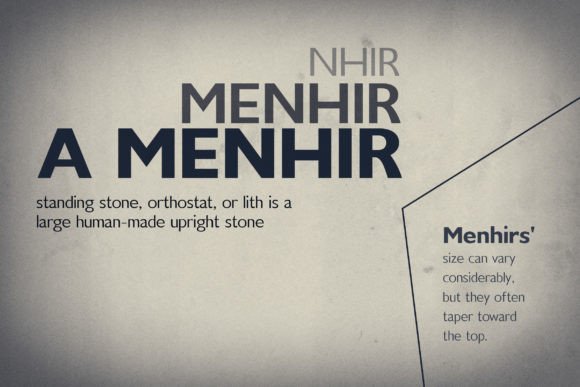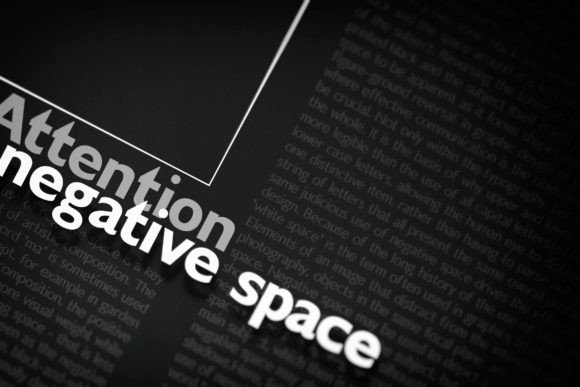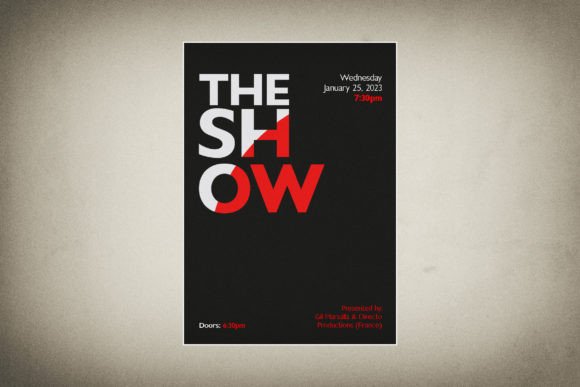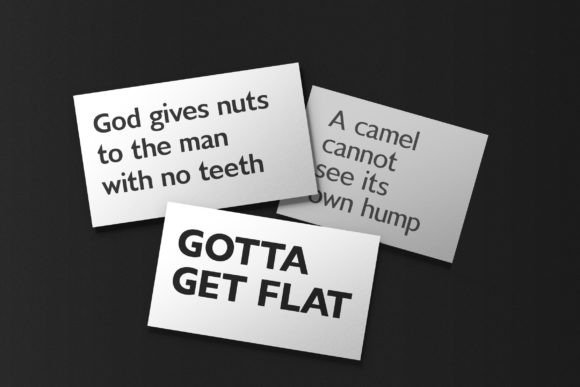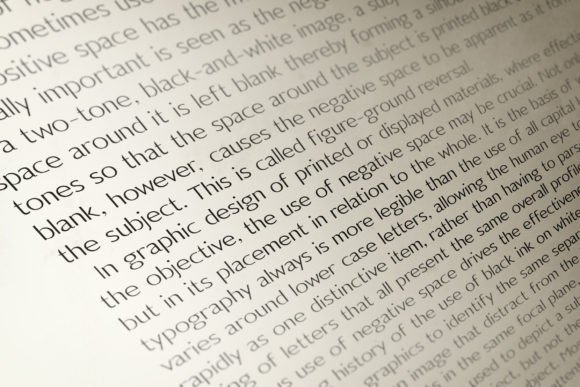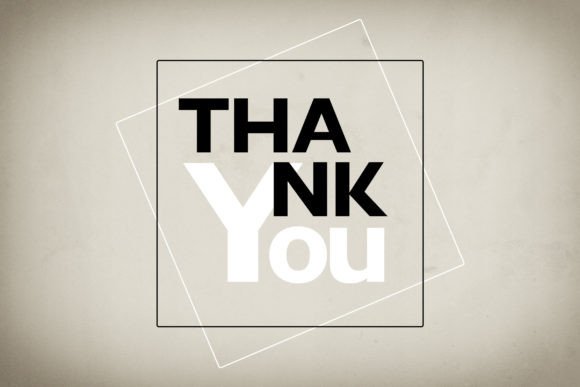
Introduction to Kastore Font
Have you ever found yourself staring at a blank page, trying to come up with the perfect design concept for a project? I’m sure you have. As a designer, it’s a feeling we’re all too familiar with. But what if I told you that there’s a font that could take your creative project to the next level? Enter the Kastore Font, an elegant and modern sans serif font that’s about to become your new best friend.
This high-quality font is perfect for designers who value simplicity and versatility. With its minimalist and clean vibe, the Kastore Font can easily apply to a wide range of designs, from book covers to social media posts, and even invitations. And the best part? It’s available for free download, making it a valuable resource for any creative project.
Whether you’re working on a design project or simply looking for a new font to add to your collection, the Kastore Font is definitely worth checking out. Its transparent background and modern aesthetic make it a perfect addition to any design portfolio.
Key Features of Kastore Font
- Includes a wide range of glyphs and characters, making it an ideal choice for complex creative projects.
- Perfect for designers and artists looking for a unique and high-quality design resource for their creative project.
Honest Review: Kastore Font
I recently had the chance to try out the Kastore Font for a creative project and I must say it’s been a pleasant experience. This font is a great design resource that offers a lot of potential for those looking for a unique touch.
What works well: ✨ The Kastore Font is available for free download, which is a huge plus for designers on a budget. It also features a transparent background, making it easy to use with any design element. The font itself is high quality and has a distinct aesthetic that can add a lot of character to a project.
- High quality font with a unique aesthetic
However, I did encounter a few limitations: ⚠️ The font may not be suitable for all types of projects, as it has a quite bold and playful style. Additionally, the font family is relatively small, which may limit its versatility.
Overall, I’m impressed with the Kastore Font and I think it’s a great addition to any designer’s toolkit. While it may have some limitations, its unique style and high quality make it a valuable resource for creative projects.
Tips for Getting the Most Out of Kastore Font
With Kastore Font, you can create stunning visuals with a transparent background, perfect for presentations, social media, or any other design project.
Kastore Font is ideal for a variety of creative projects, including: